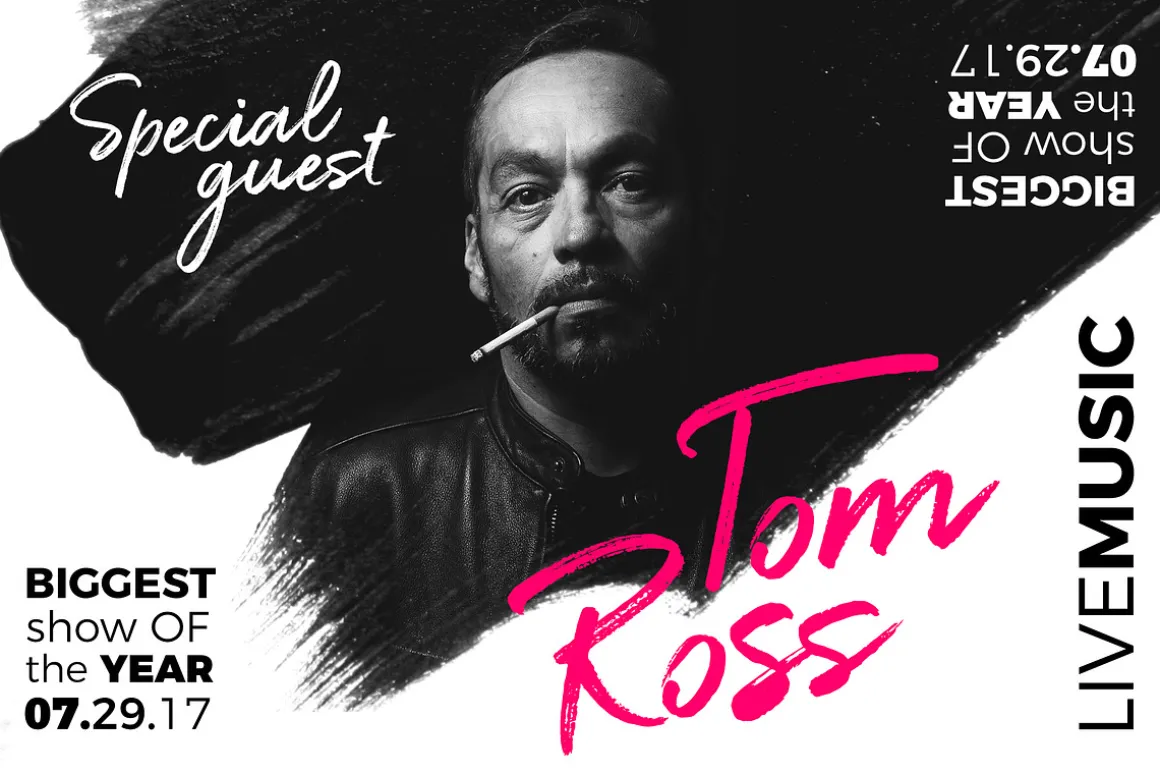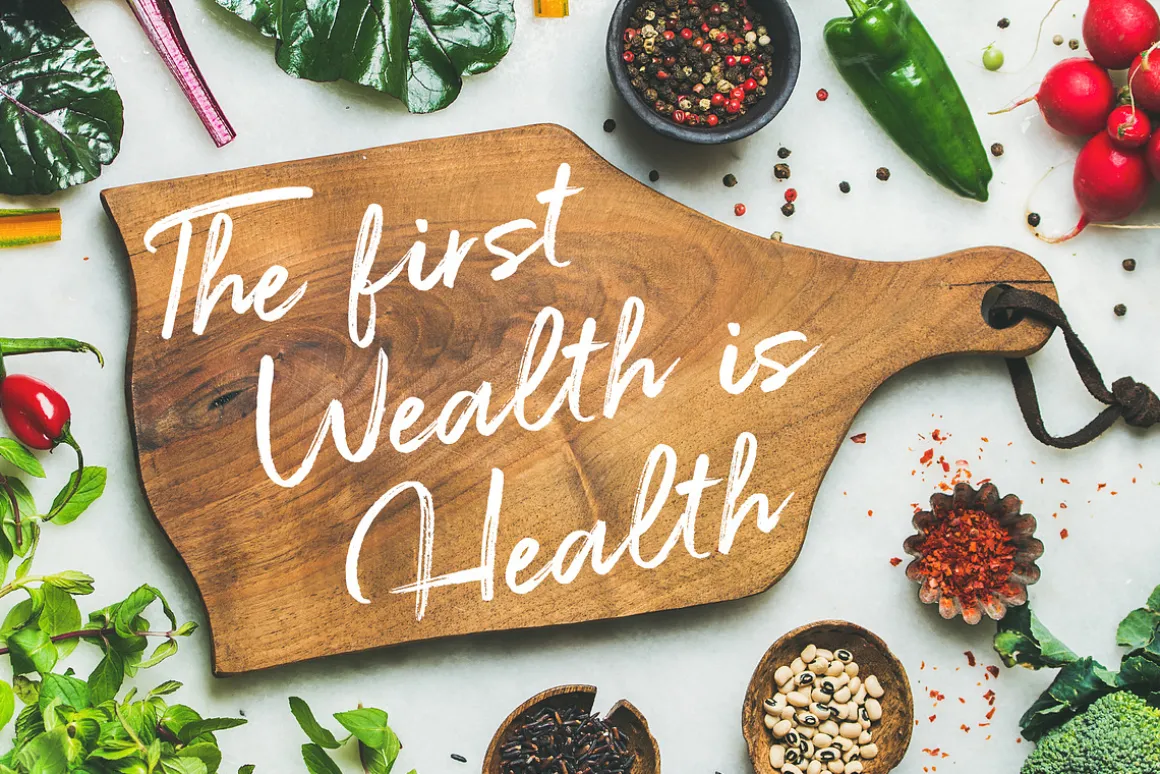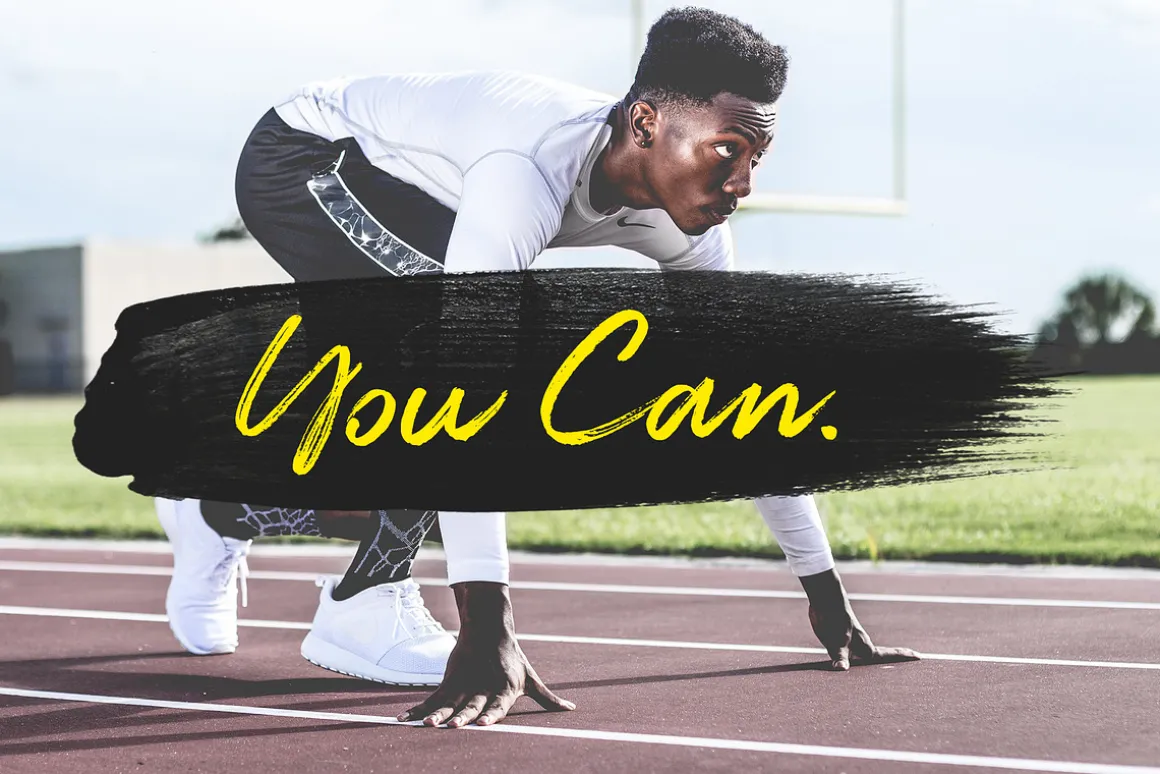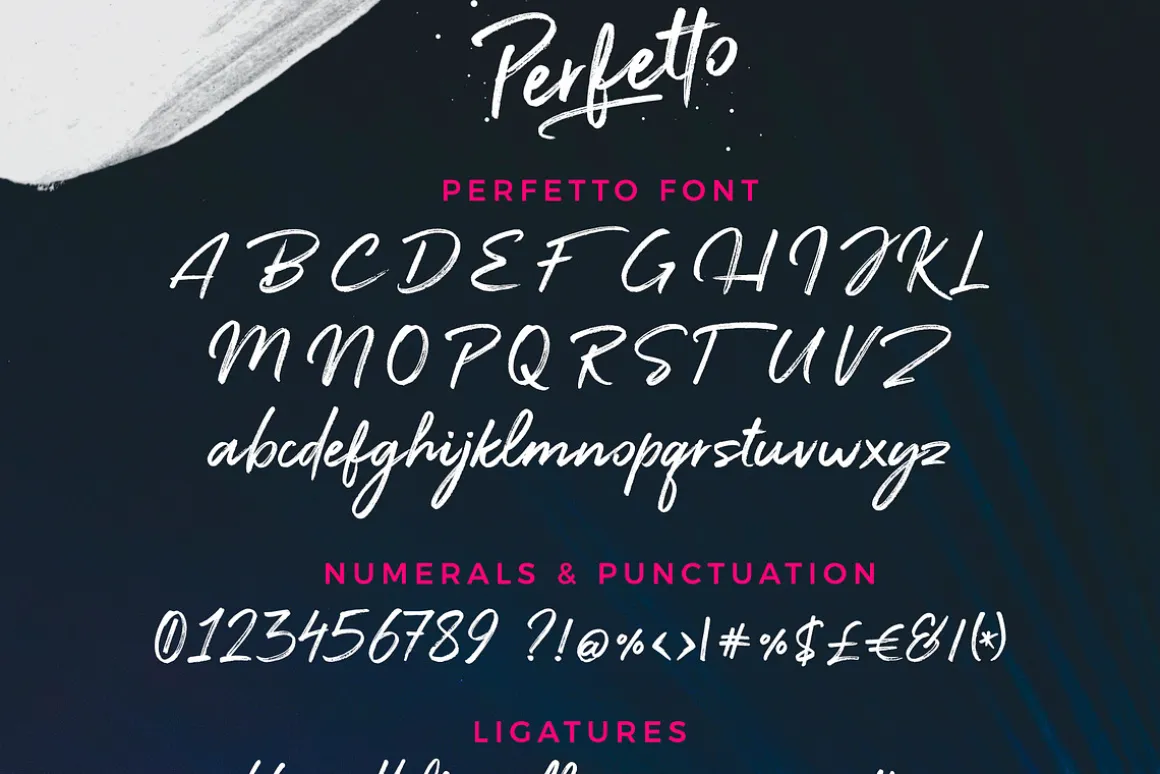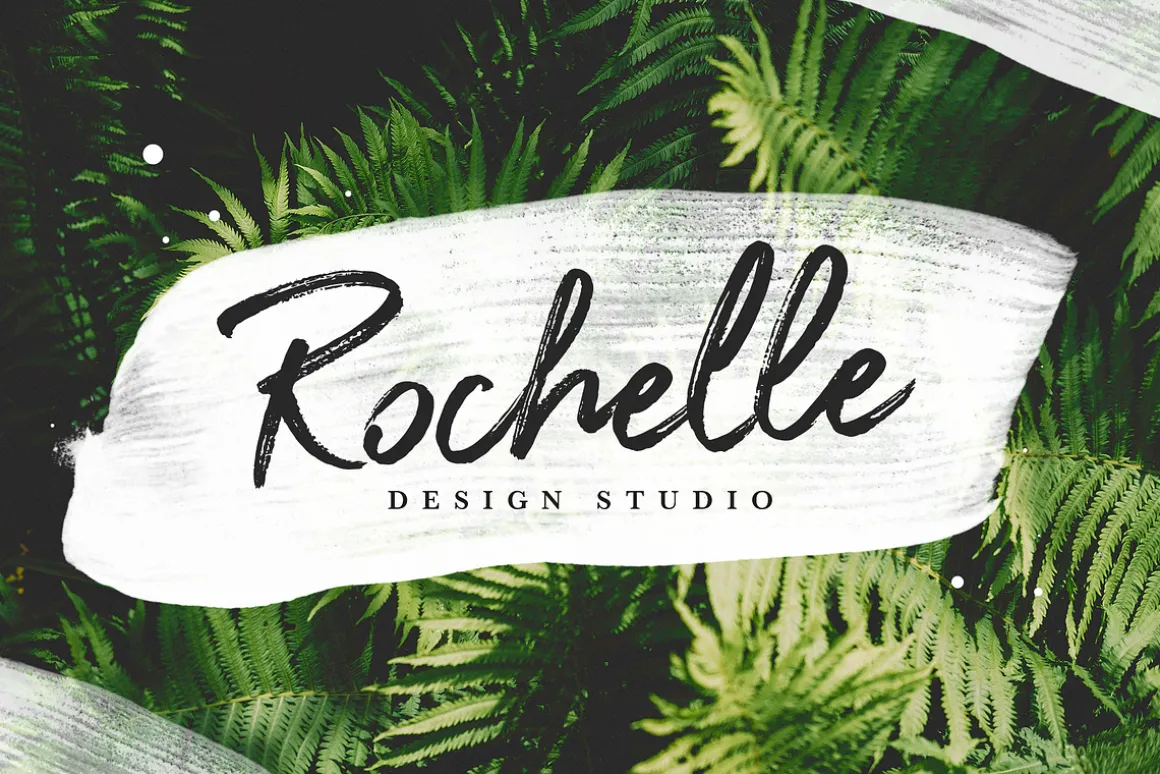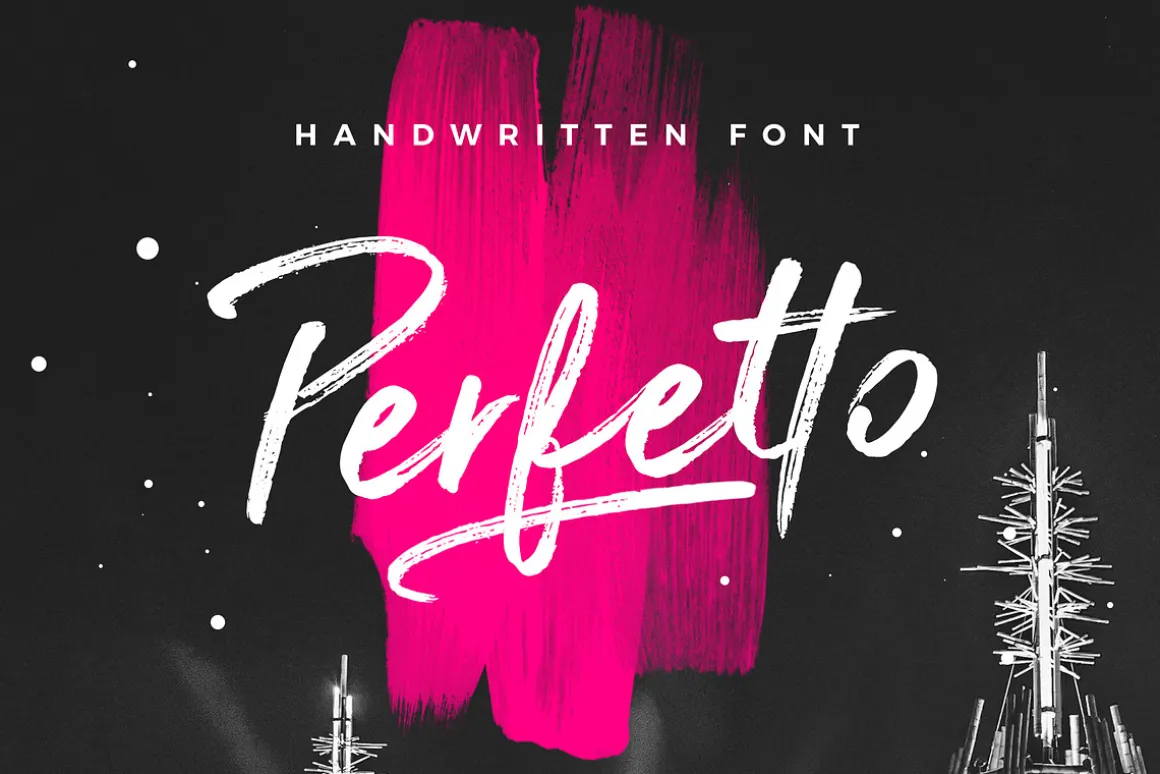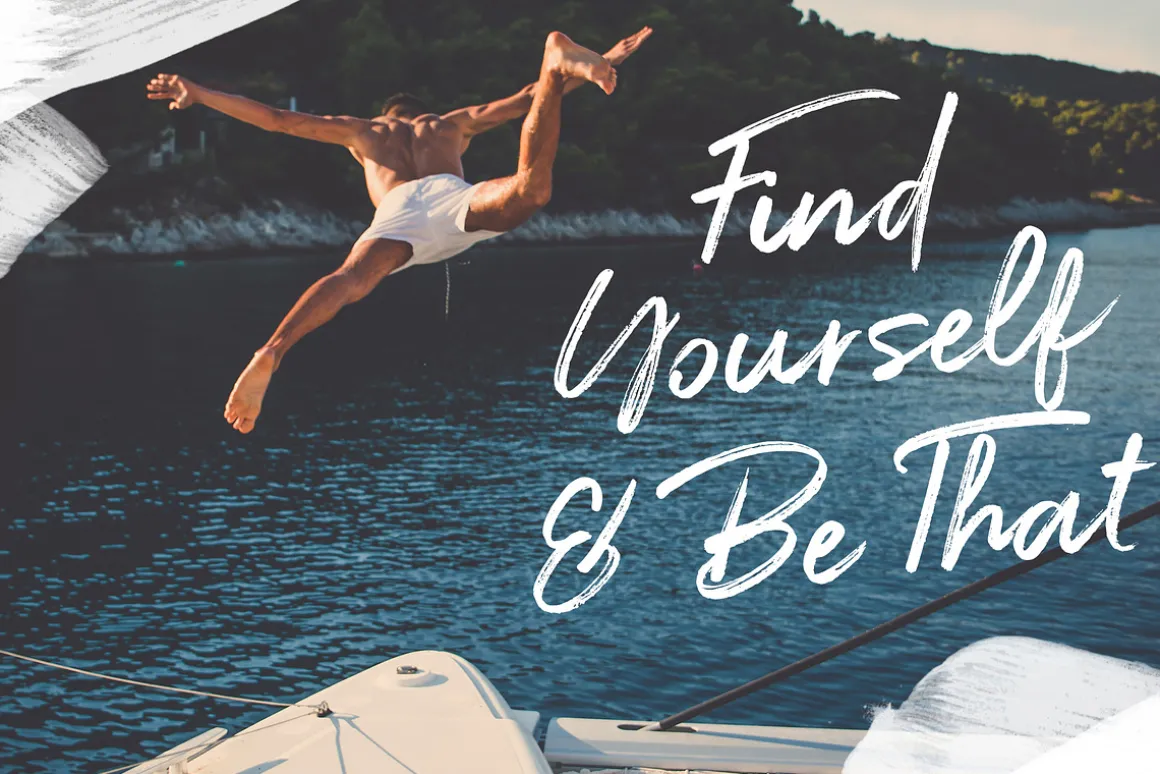
Introducing Perfetto – a handwritten brush Font with authentic dry brush strokes drawn on paper. Perfect for logo designs, poster design, social media, typographic quotes over photos, book covers and packaging design.
The font features several ligatures for lower case characters, accessible in the Adobe Illustrator Glyphs panel, or under Stylistic Alternates in the Adobe Photoshop OpenType menu.
International support for most Western Languages is included.